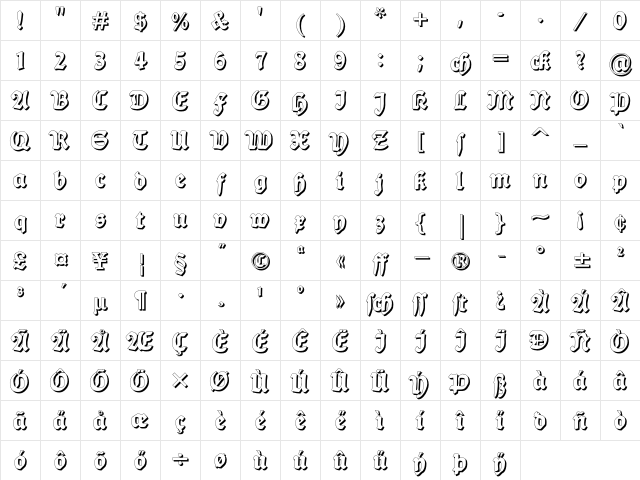
Ballade Shadow Regular Free Font
Ballade Shadow Regular
Designer: Dieter Steffmann
Design Context for Ballade Shadow
Ballade Shadow is built around its visual character rather than neutral utility - its distinctive forms are designed to make an impression at display sizes.
Font Pairing: Pair with a clean neutral sans-serif for body copy to let Ballade Shadow's character lead without overwhelming the composition.
Pro Tip: Use Ballade Shadow exclusively at display sizes - it was designed to be seen, not read at length. Let a neutral companion handle body copy.